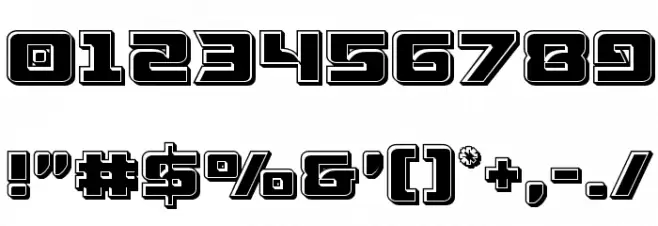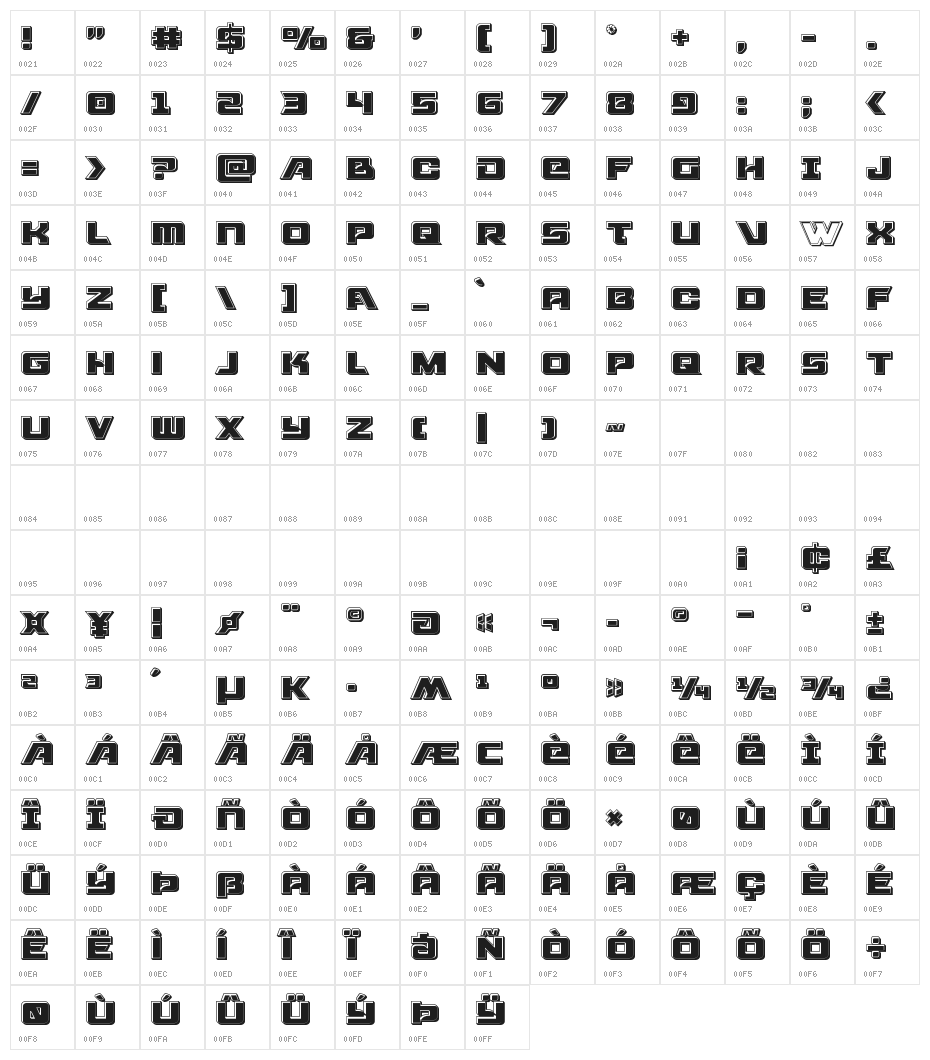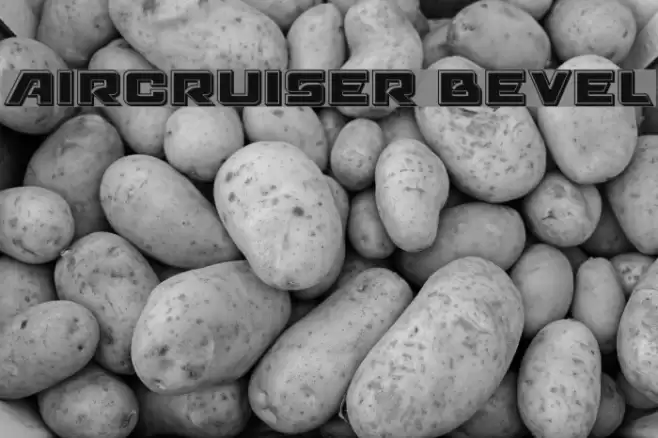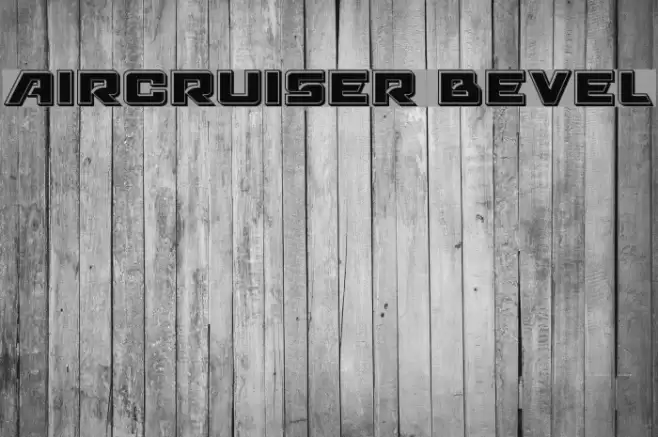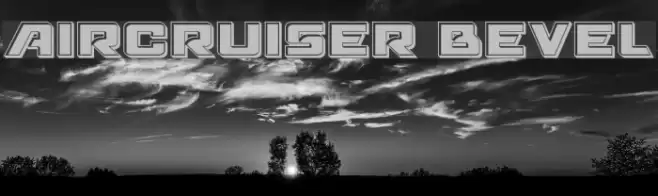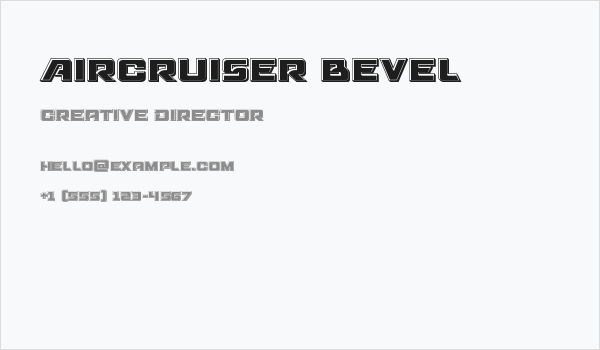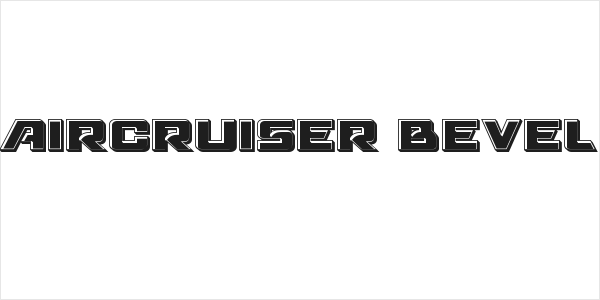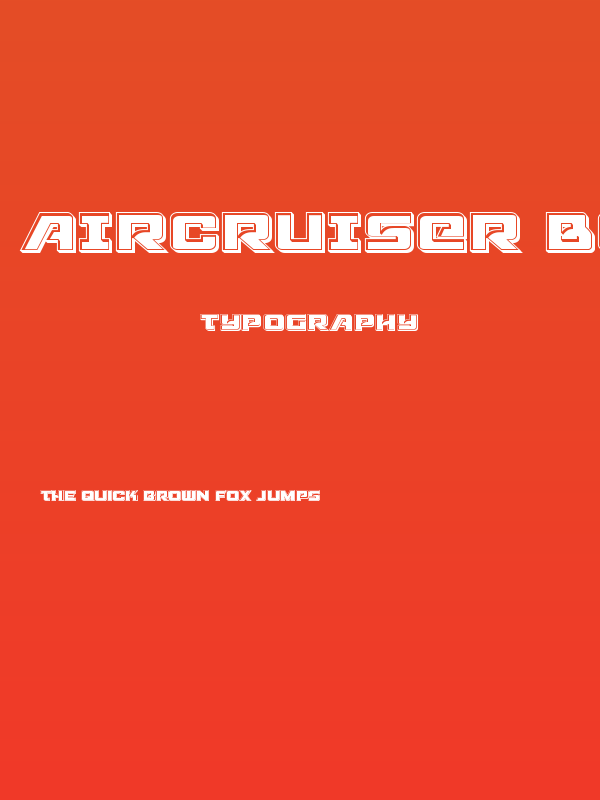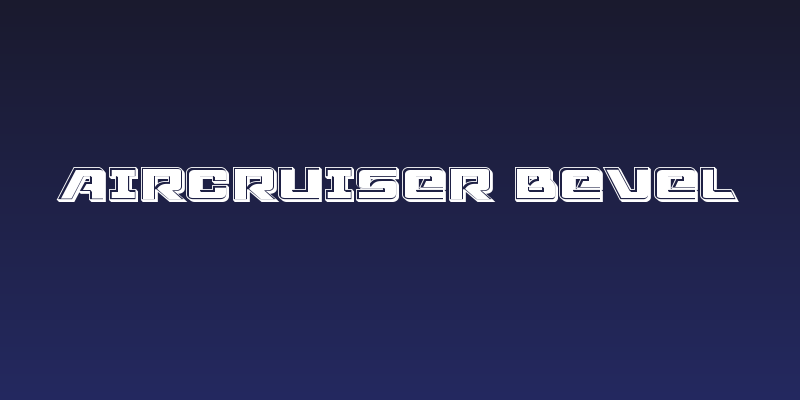
Aircruiser Bevel Font
Aircruiser Bevel Description
This font features a bold, geometric design with a distinct beveled edge that gives it a three-dimensional appearance. The characters are uppercase and have a strong, industrial feel, making them stand out prominently. The strokes are thick and consistent, providing a uniform look across all letters and numbers. The spacing between characters is tight, enhancing the compact and cohesive appearance of the text. This style is reminiscent of futuristic or sci-fi themes, with a modern twist that makes it suitable for various creative projects.
| Proposed Projects | Ideal for sci-fi themed designs, video game titles, posters, and branding that requires a strong, futuristic aesthetic. |